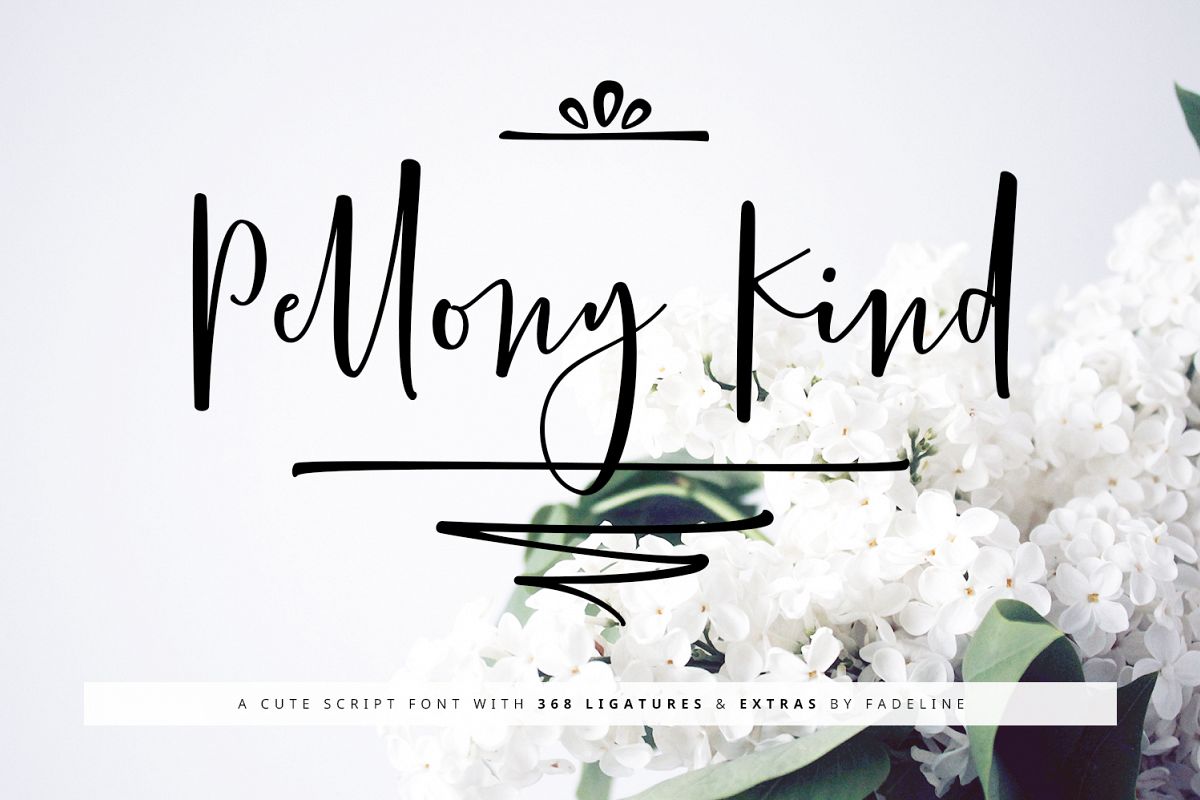
Pellony Kind Cute Extras
Introduce Pellony Kind Script!
This is a cute handwritten script. This font is created with a semibold handwriting style. Made with careful consideration, in order to create a comfortable impression when using it. And with available various types of ligatures make this font look natural. There are 572 glyphs in it and 368 of them are ligatures like is the current trend, it's just that this font comes with a semibold style.
With a style like this, this font will be suitable in use for logo's, branding projects, homeware designs, product packaging, mugs, quotes, posters, shopping bags, logo's, t-shirts, book covers, name card, invitation cards, greeting cards, and all your other lovely projects.